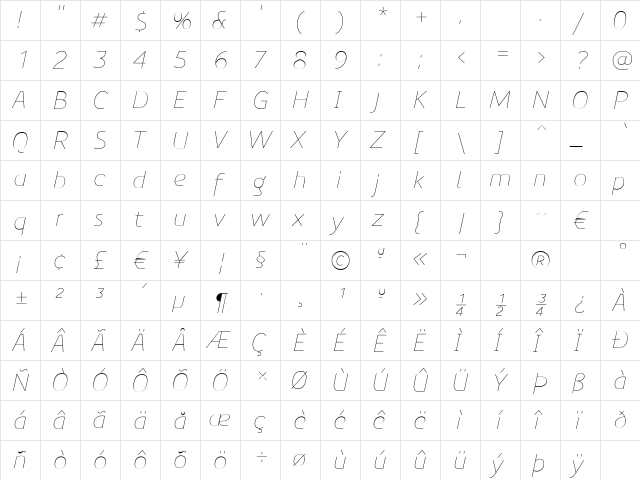
PreciousSansThinItalic Regular
Design Context for PreciousSansThinItalic Typeface
PreciousSansThinItalic is a composed and adaptable typeface that performs quietly and consistently across a wide range of design contexts. The slanted form adds forward momentum and visual energy. The delicate stroke weight brings airiness and refinement to layouts.
Pro Tip: Try PreciousSansThinItalic for annotation and caption copy alongside an upright companion — the contrast in angle creates a dynamic but ordered typographic system.